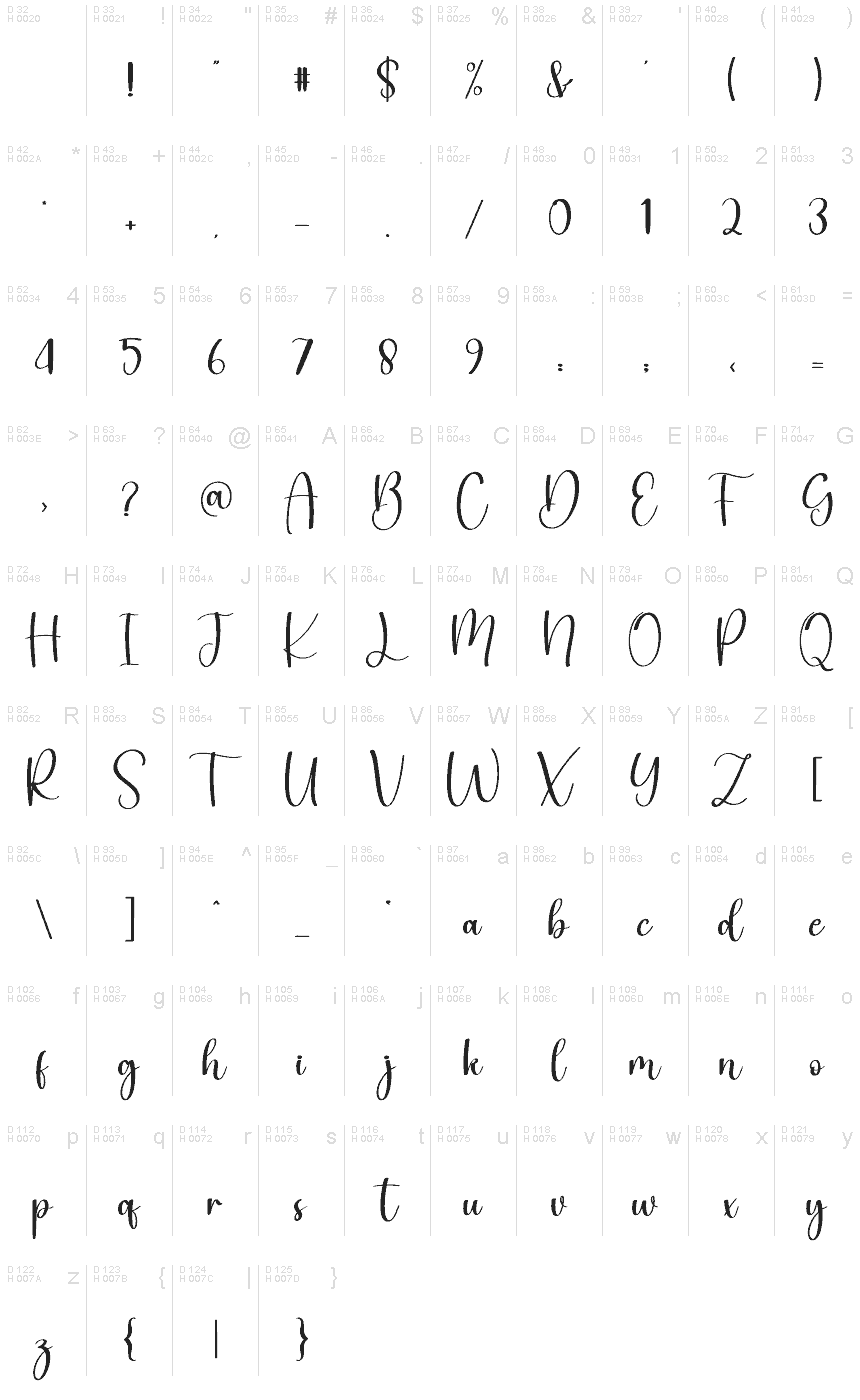
Barbie Signature
Barbie Signature font by Andi Moz is a free handwritten font combining elegance and flowing signature style with the added flair of decorative elements and personal touches in every letter. A nostalgic charm accompanies each stroke creating an esthetically satisfying set with emotional tones like no other.